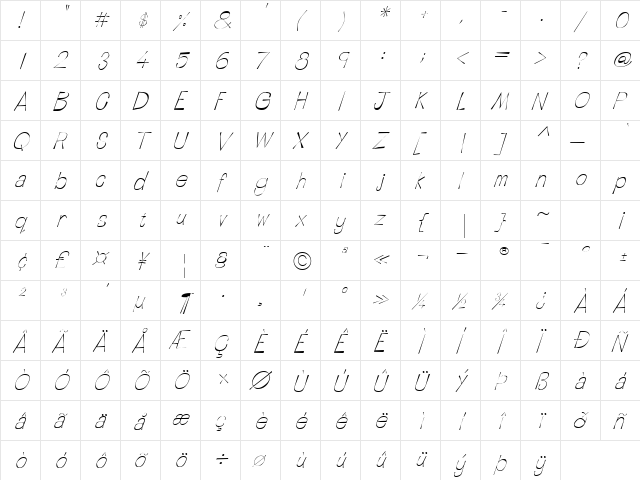
LTTapeside Light LightOblique
Design Context for LTTapeside Light Typeface
LTTapeside Light is a composed and adaptable typeface that performs quietly and consistently across a wide range of design contexts. The dynamic lean of this cut emphasises speed and emphasis in any layout. Its slender proportions lend an understated elegance to any composition.
Pro Tip: Try LTTapeside Light for annotation and caption copy alongside an upright companion — the contrast in angle creates a dynamic but ordered typographic system.